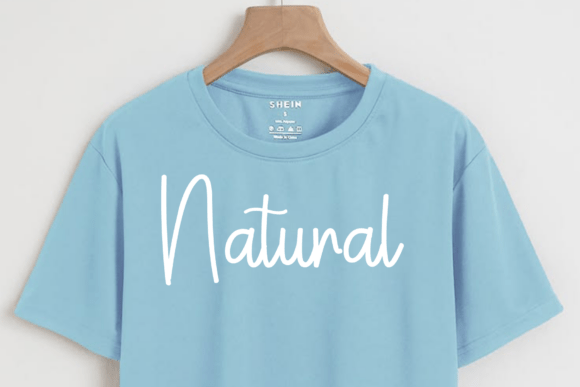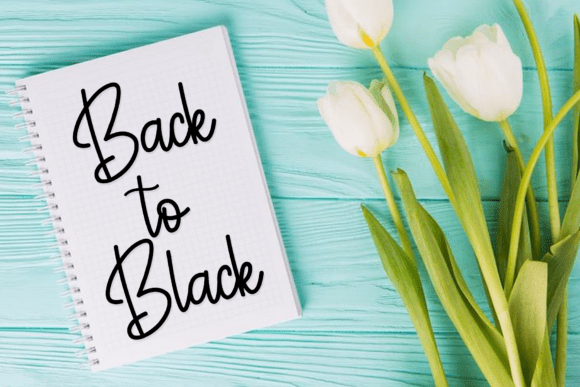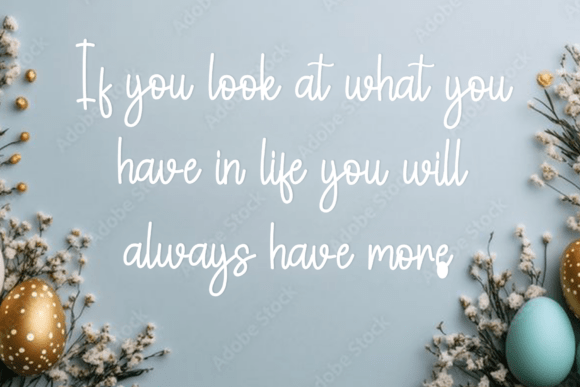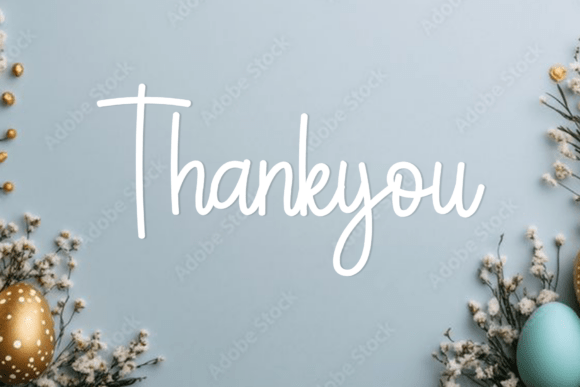
Easter Winter Font: Elevate Your Design with Elegance and Sophistication
Are you looking for a font that exudes luxury, sophistication, and a touch of elegance? Look no further than Easter Winter Font, a beautifully flowing and modern handwritten script font that is sure to elevate your design to the next level. With its smooth, generous curves and graceful, elongated strokes, Easter Winter Font gives your text a signature look that is both professional and unique.
Easter Winter Font is perfect for designers and crafters who want to add a touch of luxury and sophistication to their work. Whether you’re working on personal branding, photography watermarks, luxury wedding stationery, editorial design, or any other project that requires a sweeping, authentic, and naturally luxurious touch, Easter Winter Font is the perfect choice.
Key Features of Easter Winter Font
- Smooth and Generous Curves: Easter Winter Font features smooth and generous curves that give your text a flowing and elegant look.
- Graceful and Elongated Strokes: The font’s strokes are long and lean, giving your text a sophisticated and signature look.
- Professional and Unique: Easter Winter Font is a professional and unique typeface that is perfect for designers and crafters who want to stand out from the crowd.
- Versatile: The font is versatile and can be used for a variety of projects, from personal branding to editorial design.
Uses for Easter Winter Font
Easter Winter Font is perfect for a variety of projects, including:
- Personal Branding: Use Easter Winter Font to create a luxurious and sophisticated brand identity that stands out from the crowd.
- Photography Watermarks: Add a touch of elegance and sophistication to your photography watermarks with Easter Winter Font.
- Luxury Wedding Stationery: Create beautiful and luxurious wedding stationery with Easter Winter Font, including invitations, menus, and more.
- Editorial Design: Use Easter Winter Font to add a touch of sophistication and elegance to your editorial designs, including magazines, newspapers, and more.
Why Choose Easter Winter Font?
There are many reasons why you should choose Easter Winter Font for your next project. Here are just a few:
- Unique and Professional: Easter Winter Font is a unique and professional typeface that will help you stand out from the crowd.
- Elegant and Sophisticated: The font’s smooth curves and elongated strokes give your text an elegant and sophisticated look.
- Versatile: Easter Winter Font can be used for a variety of projects, from personal branding to editorial design.
- Easy to Read: Despite its elegant and sophisticated look, Easter Winter Font is easy to read and understand.
Tips for Using Easter Winter Font
Here are a few tips for using Easter Winter Font:
- Use it Sparingly: Easter Winter Font is a luxurious and sophisticated font, so use it sparingly to avoid overwhelming your design.
- Pair it with Other Fonts: Pair Easter Winter Font with other fonts to create a unique and interesting contrast.
- Experiment with Colors: Experiment with different colors to find the perfect match for your Easter Winter Font.
Easter Winter Font is a beautifully flowing and elegant modern handwritten script font that is perfect for designers and crafters who want to add a touch of luxury and sophistication to their work. With its smooth curves and elongated strokes, Easter Winter Font gives your text a signature look that is both professional and unique. Whether you’re working on personal branding, photography watermarks, luxury wedding stationery, editorial design, or any other project, Easter Winter Font is the perfect choice.